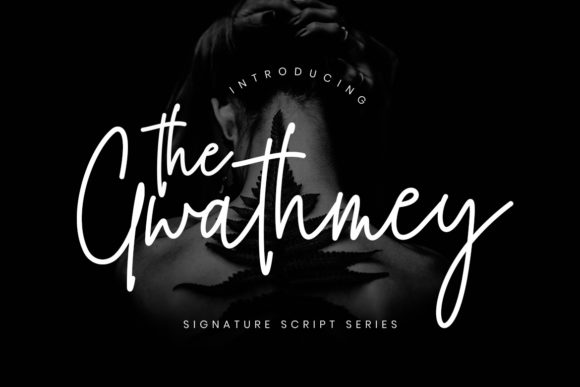
About The Gwathmey Script Font
The Gwathmey is an elegant signature font. It has natural characteristics that are designed for all kinds of stylish projects.
It’s perfect for branding projects, logos, wedding designs, social media posts, advertisements, product packaging, product designs, labels, photography, watermarks, invitations, stationery and every other project that needs a handwriting taste.